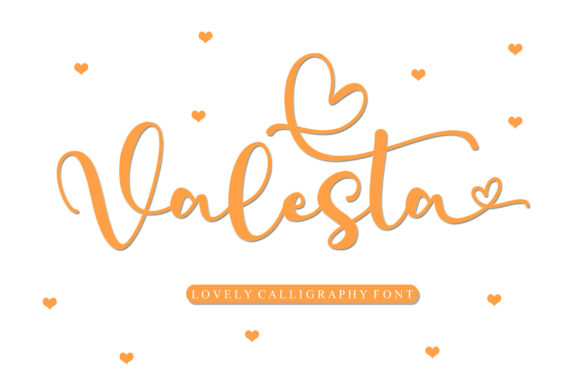
Introducing Valesta Font, the enchanting script font that captivates with its timeless beauty and irresistible charm. Immerse yourself in a world of elegance and sophistication, where every letter dances across your screen with a touch of handwritten artistry.
With Valesta's graceful curves and sweeping strokes, your words will come alive, leaving a lasting impression on all who behold them. Picture the allure of wedding invitations adorned with Valesta's intricate details, the warmth of thank-you cards penned in its flowing script, and the timeless appeal of quotes etched in its stylish characters.
Enhance your designs with Valesta's versatility, seamlessly blending with a plethora of creative projects. Logos and business cards will radiate professionalism, while greeting cards and social media posts will captivate your audience with a touch of elegance. Let Valesta guide your vision, transforming ordinary text into extraordinary works of art.
Unleash your creativity with Valesta's PUA encoding, granting you effortless access to a treasure trove of glyphs and swashes. Explore endless possibilities, adding intricate flourishes and whimsical elements to your designs. With Valesta, the limits of your imagination are the only boundaries.
Step into a world of creativity and enchantment with Valesta Font, where every word transforms into a masterpiece. Embrace the allure of timeless elegance and let your designs flourish with a touch of handwritten artistry.